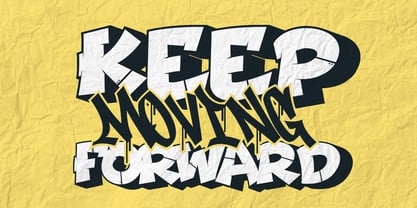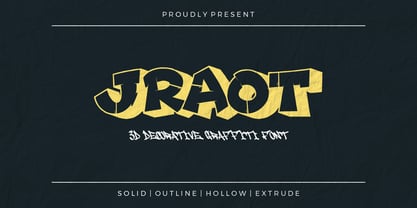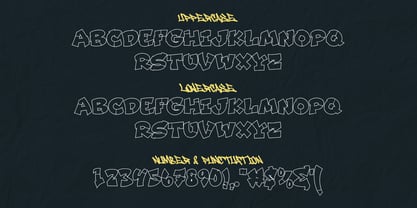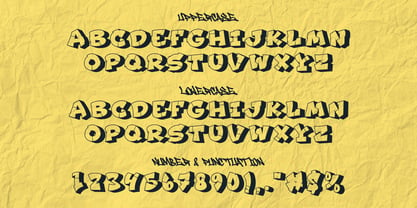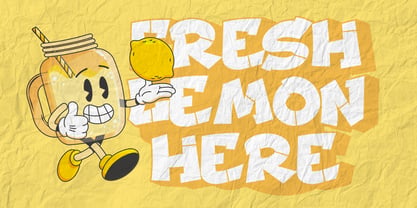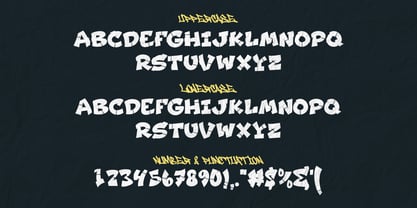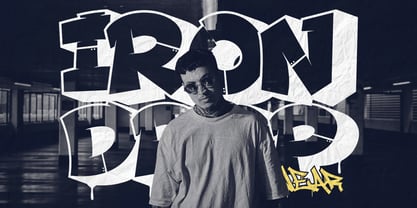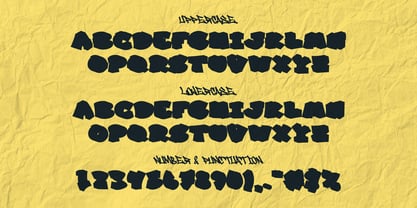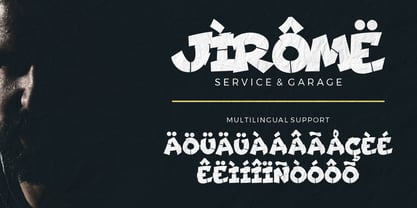
Jraot 3D Graffiti
by Sipanji21
The Jraot 3D Graffiti Font Family was designed by Sipanji and published by Sipanji21. Jraot 3D Graffiti contains 4 styles and family package options. More about this family
JRAOT is a layered graffiti typeface with a strong urban flair. It includes four complementary styles—Solid, Outline, Hollow, and Extrude—allowing users to layer and experiment for maximum typographic impact. Suitable for everything from large-format prints and branding to digital design requiring a bold and expressive style.
Designers: Sipanji
Foundry: Sipanji21